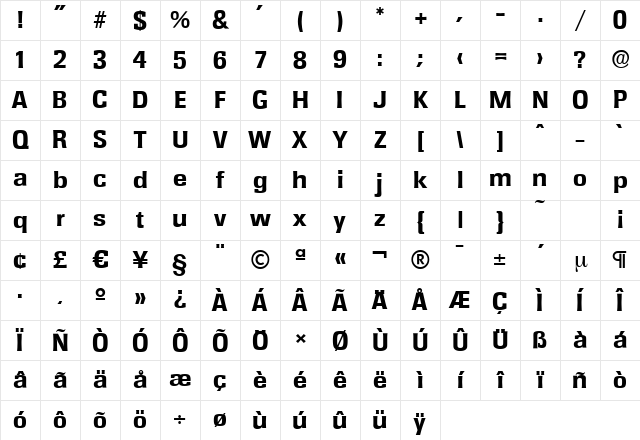
RochesterSerial-Xbold Regular
Design Context for RochesterSerial-Xbold
RochesterSerial-Xbold is a composed and adaptable typeface that performs quietly and consistently across a wide range of design contexts. Its bold stroke weight gives it real presence on the page.